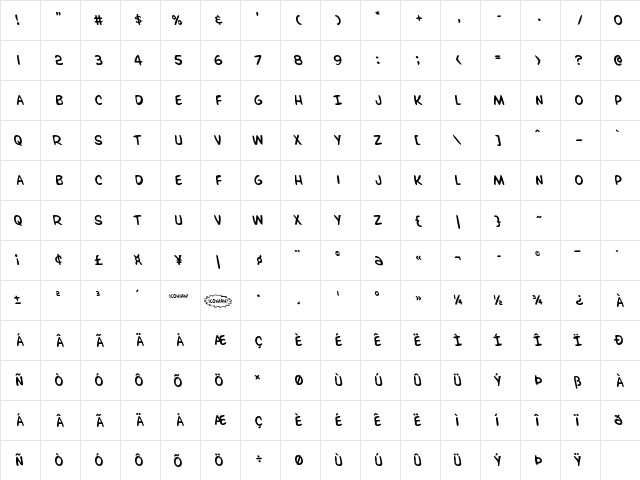
Overstreet Bible Leftalic Italic Font Preview
Overstreet Bible Leftalic Italic
Overstreet Bible Leftalic Italic Font Details
Design Context for Overstreet Bible Leftalic Typeface
Overstreet Bible Leftalic is a composed and adaptable typeface that performs quietly and consistently across a wide range of design contexts. The dynamic lean of this cut emphasises speed and emphasis in any layout.
Pro Tip: Try Overstreet Bible Leftalic for annotation and caption copy alongside an upright companion — the contrast in angle creates a dynamic but ordered typographic system.